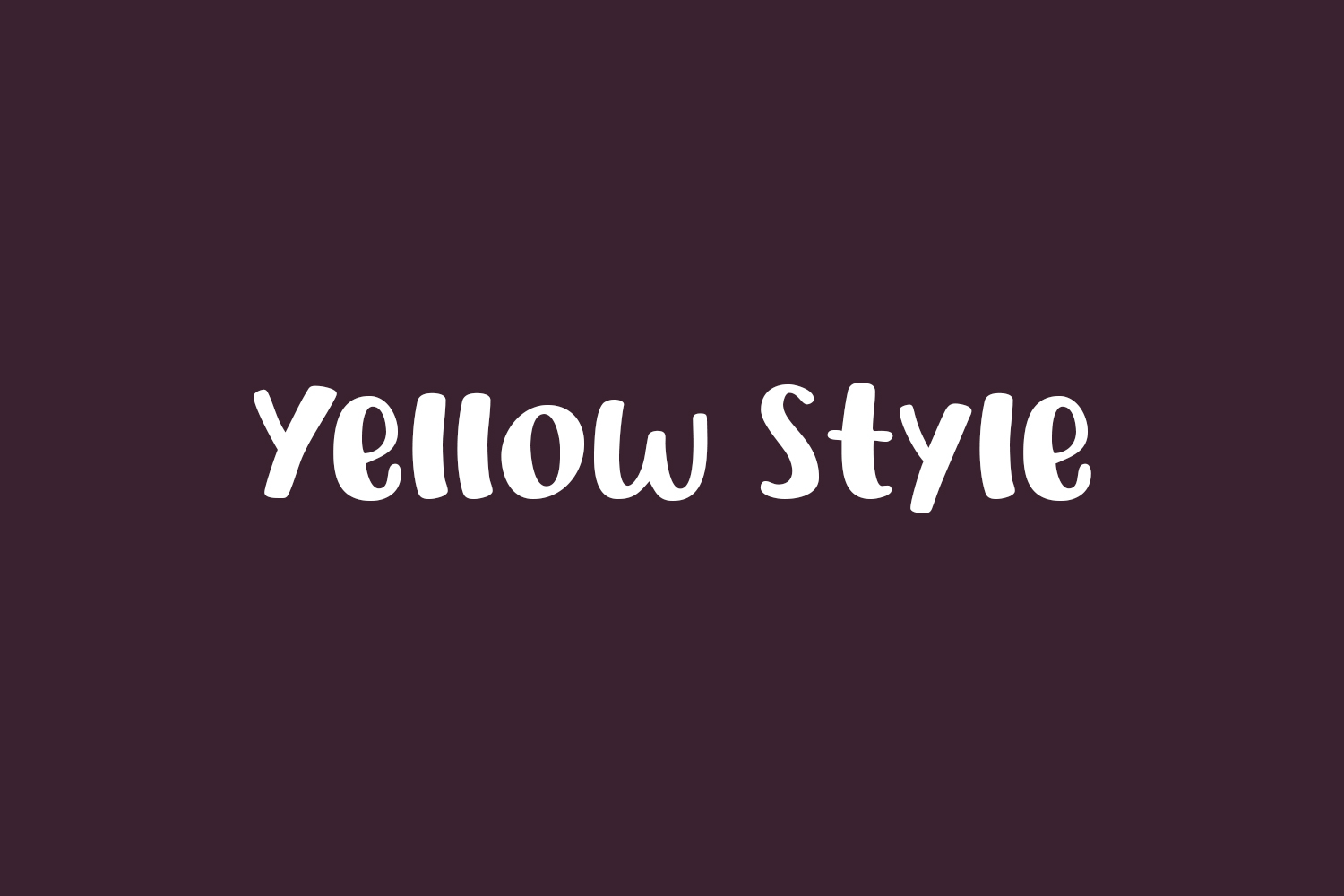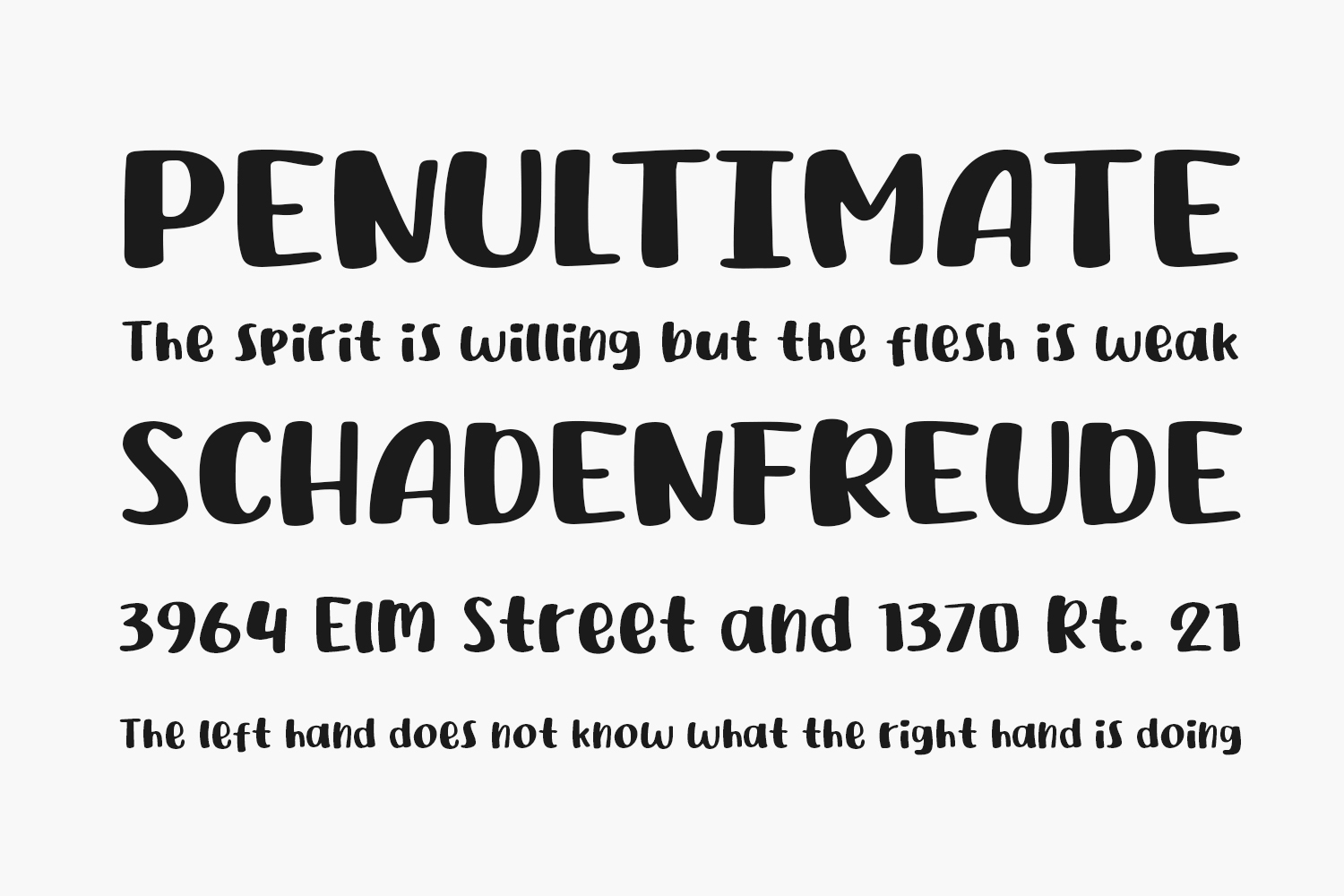
Meet Yellow Style Free Font, a lively and dynamic display typeface designed to radiate personality and allure. Featuring playful letterforms and lively curves, this font injects a sense of playfulness into every design. Ideal for headlines, logos, and imaginative projects seeking a burst of character, Yellow Style Font embodies the spirit of joy and creativity, ensuring your text shines with its distinctive and energetic flair. Yellow Style Free Font is free for personal use only. Please purchase the full version for commercial use.